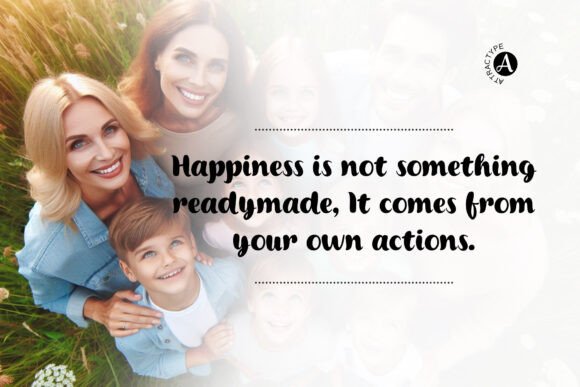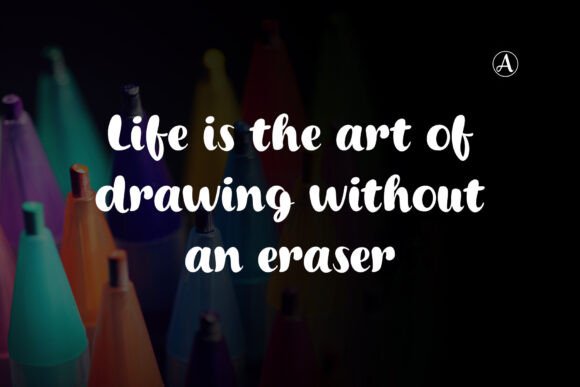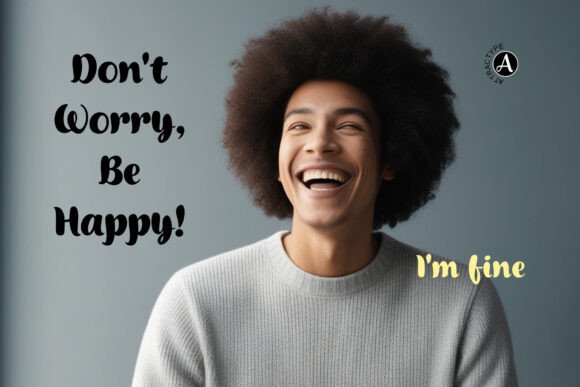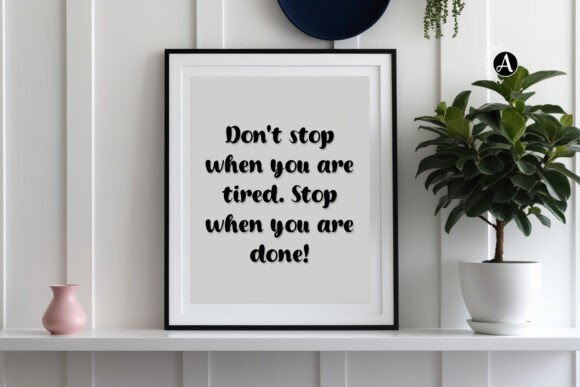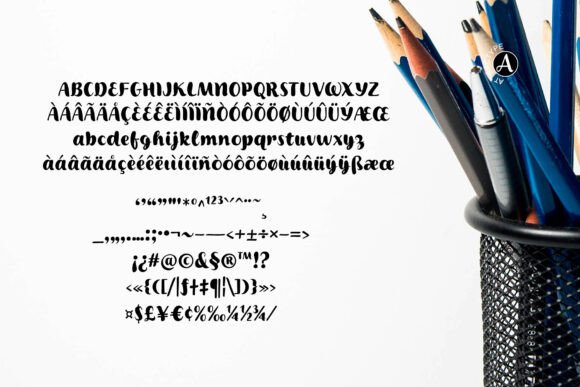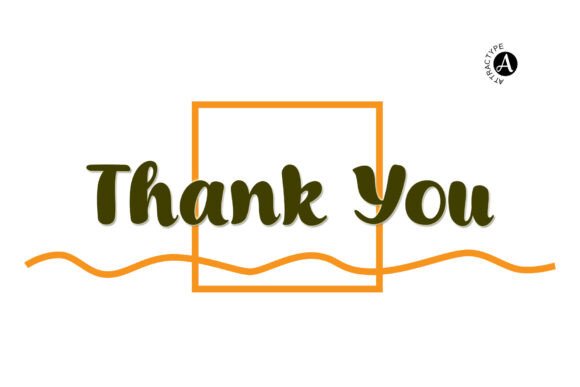
Unleash Your Creativity with the Perfect Handwritten Font
Have you ever found yourself rummaging through your sketchbook, searching for the perfect font to bring your design idea to life? That’s exactly what happened to me when I stumbled upon the Big Pear Font. Its fun, bold, and readable style immediately caught my attention, and I knew I had to share it with fellow designers.
The Big Pear Font is a versatile, handwritten font designed to make a statement in various design projects. From t-shirt designs and quotes to wall art, food products, ads, banners, and social media posts, this font is perfect for any creative endeavor. Its unique charm and readability make it a valuable asset for designers looking to add a personal touch to their work.
Big Pear Font Key Features
- Font Family: Big Pear is a unique, handwritten font designed to convey a sense of elegance and sophistication.
- Character Set: Supports a wide range of languages, including Latin, Cyrillic, and Greek alphabets, making it a versatile choice for multilingual designs.
- Size: Available in 6 font sizes, ranging from 12pt to 72pt, allowing designers to achieve the perfect balance between legibility and visual impact.
- Resolution: Optimized for high-resolution displays, ensuring crisp and clear typography even at larger font sizes.
- Unique Characteristics: Features distinctive, connected letterforms and subtle flair at the ends of strokes, giving it a hand-drawn feel that sets it apart from other fonts.
Big Pear Font Review
Overall, I have mixed feelings about the Big Pear Font. On the one hand, it’s a great addition to any design project that requires a playful, yet elegant feel. ✨ The font’s unique, rounded shapes make it perfect for creating a warm and inviting atmosphere, while its versatility allows it to be used in a variety of contexts, from children’s books to food packaging.
One of the things I appreciate most about Big Pear Font is its readability. ✨ The font is highly legible, even at smaller font sizes, making it ideal for body text. Additionally, the font’s rounded edges give it a friendly feel that’s perfect for creating a sense of approachability.
Limits and Challenges
While Big Pear Font is a great choice for many projects, there are some limitations to consider. ⚠️ One of the main drawbacks is its lack of subtlety. The font’s bold, playful feel can be overwhelming in certain contexts, and it may not be the best choice for more formal or professional projects.
Another limitation is the font’s limited character set. ⚠️ While the font includes a wide range of letters and numbers, it’s missing some special characters and symbols that may be necessary for certain projects.
Conclusion
Overall, I would recommend Big Pear Font for projects that require a playful, yet elegant feel. While it may not be the best choice for every project, it’s a great addition to any designer’s toolkit. With its unique shape, high readability, and versatility, it’s sure to add a touch of personality to any design.
- Unique, rounded shapes create a warm and inviting atmosphere
- Highly legible, even at smaller font sizes
- Perfect for children’s books, food packaging, and other playful projects
Big Pear Font is ideal for creating eye-catching headlines and titles. It’s also great for adding a touch of elegance to your designs. To get the most out of Big Pear Font, use it sparingly and pair it with simpler fonts for body text.
Some common use cases for Big Pear Font include:
- Creating a wedding invitation or announcement
- Designing a business card or logo
- Adding a touch of elegance to a presentation or report
Alternatives to Big Pear Font
Great Vibes is a modern, elegant script font suitable for titles, headings, and quotes. It’s ideal for creating a sophisticated and stylish look. Compared to Big Pear Font, Great Vibes has a more refined and polished feel, making it suitable for a wider range of design projects.
Carolyna Pro is a high-end script font with a vintage flair. It’s perfect for creating a luxurious and elegant atmosphere. In comparison to Big Pear Font, Carolyna Pro has a more sophisticated and refined feel, making it suitable for high-end branding and packaging projects.